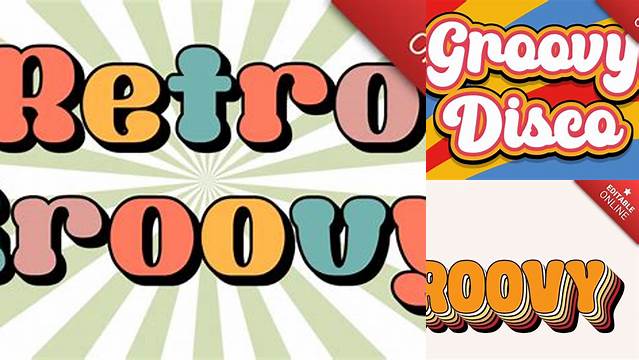
Free Retro Groovy Font Generator: 70s Style!
Hey groovy cats! Are you looking to add some serious retro vibes to your designs? Then you've come to the right place! In this article, we're diving deep into the world of retro groovy fonts and exploring how you can generate them for free. Get ready to boogie back in time and infuse your projects with that funky '70s flair.
What is a Retro Groovy Font?
So, what exactly is a retro groovy font? Think back to the days of bell-bottoms, disco balls, and lava lamps. The fonts of that era were bold, expressive, and full of personality. They often featured rounded shapes, psychedelic curves, and a generally playful aesthetic. These fonts were designed to grab attention and evoke a sense of fun and freedom. When we talk about retro groovy fonts, we're talking about fonts that capture that same spirit – fonts that instantly transport you back to the 1970s.
Retro groovy fonts are more than just a typeface; they are a statement. They embody the spirit of an era defined by bold expression and cultural revolution. Picture the opening credits of a classic 70s sitcom, the album art of a funk record, or the signage of a vintage boutique. These visuals are all tied together by the unique fonts of the time. Fonts such as the Cooper Black, with its rounded serifs and heavy weight, or the fluid, script-like forms of fonts similar to the Lobster, encapsulate the decade's playful and expressive nature. These fonts were not designed to be subtle; they were meant to stand out, to command attention, and to add a touch of whimsy to any design. Their curves and flourishes are reminiscent of the organic shapes and psychedelic art that were so popular, making them a perfect choice for projects aiming to evoke a sense of nostalgia or vintage cool. Whether you’re creating a poster, a logo, or a website, using a retro groovy font can instantly inject your work with the iconic style of the 70s, making it resonate with those who remember the decade and captivating those who are discovering its charm for the first time.
The versatility of retro groovy fonts also makes them incredibly appealing in contemporary design. While they may be rooted in the past, their unique character and eye-catching forms allow them to seamlessly integrate into modern projects. Imagine a music festival poster that uses a retro groovy font to announce the headlining acts, instantly conveying a sense of fun and nostalgia. Or consider a brand that wants to communicate a sense of playfulness and approachability; using a font with rounded edges and a vintage feel can help create that connection with the audience. The key is to use these fonts thoughtfully, balancing their bold nature with the overall design to achieve a cohesive and impactful result. For example, pairing a retro groovy font with a clean, minimalist layout can create a striking contrast that draws the eye and makes the font truly shine. In addition, modern designers often experiment with color palettes and visual elements that complement the font's vintage vibe, such as warm oranges, yellows, and browns, or geometric patterns and retro illustrations. By understanding the history and characteristics of these fonts, designers can leverage their power to create designs that are both timeless and on-trend.
From a technical standpoint, the creation of retro groovy fonts often involves meticulous attention to detail. Font designers must consider the spacing between letters, the weight and thickness of the strokes, and the overall rhythm and flow of the typeface. Many retro groovy fonts feature exaggerated curves and rounded terminals, which require careful craftsmanship to ensure that the font remains legible and visually appealing. The process of digitizing these fonts also presents unique challenges. While some fonts are direct adaptations of typefaces from the 70s, others are modern interpretations that capture the essence of the era while incorporating contemporary design principles. This often involves experimenting with different software and techniques to achieve the desired effect, such as using bezier curves to create smooth, flowing lines or adjusting the kerning and tracking to optimize readability. The end result is a typeface that not only looks great but also functions effectively in a variety of applications, from print to digital media. By investing the time and effort to create high-quality retro groovy fonts, designers can provide a valuable resource for creatives looking to add a touch of vintage flair to their projects.
Why Use a Retro Groovy Font?
- Nostalgia: They instantly evoke a sense of nostalgia and remind people of a simpler time.
- Uniqueness: In a world of generic fonts, retro groovy fonts stand out from the crowd.
- Personality: They add a ton of personality and character to your designs.
- Versatility: They can be used in a variety of projects, from posters and flyers to logos and websites.
- Fun: Let's face it, they're just plain fun!
Imagine you're designing a poster for a '70s-themed party. What better way to set the mood than with a retro groovy font? Or perhaps you're creating a logo for a vintage clothing store. A funky font can instantly communicate the store's aesthetic and attract the right customers. The possibilities are endless! The use of retro groovy fonts can also significantly enhance the emotional connection with the audience. These fonts have the power to evoke memories, create a sense of familiarity, and tap into the cultural zeitgeist of the 1970s. This can be particularly effective in branding and marketing, where creating an emotional connection with consumers is crucial. For example, a retro groovy font might be used in the packaging of a product that aims to evoke a sense of nostalgia or authenticity. Similarly, a website or social media campaign that uses these fonts can create a consistent visual identity that resonates with the target audience. The key is to understand the specific emotions and associations that retro groovy fonts evoke and to use them strategically to achieve the desired effect. By doing so, designers can leverage the power of these fonts to create designs that are not only visually appealing but also emotionally impactful.
Beyond their aesthetic appeal, retro groovy fonts also offer practical benefits in terms of readability and visual hierarchy. Many of these fonts are designed with bold, clear forms that make them highly legible, even at smaller sizes. This is particularly important in applications such as posters, flyers, and websites, where the text needs to be easily readable at a glance. The unique shapes and styles of retro groovy fonts can also be used to create a strong visual hierarchy within a design. For example, a headline set in a retro groovy font can immediately grab the viewer's attention, while body text set in a simpler font remains easy to read. This contrast can help guide the viewer's eye through the design and ensure that key information is communicated effectively. In addition, the distinctive character of retro groovy fonts can help to differentiate a design from the competition. In a world where many designs look and feel the same, using a unique and eye-catching font can help a project stand out and make a lasting impression. By carefully considering the practical aspects of typography, designers can harness the power of retro groovy fonts to create designs that are both beautiful and functional.
The resurgence of interest in retro groovy fonts also reflects a broader trend in design towards embracing vintage aesthetics and styles. In recent years, there has been a growing appreciation for the craftsmanship and artistry of past eras, and designers are increasingly looking to historical styles for inspiration. This trend is driven by a desire to create designs that feel authentic and timeless, and retro groovy fonts are a perfect way to achieve this. By using these fonts, designers can tap into the rich history of typography and create designs that resonate with audiences on a deeper level. This trend is also influenced by the cyclical nature of design trends, where styles from the past often come back into fashion. As new generations discover the charm and character of retro groovy fonts, they are finding new and innovative ways to incorporate them into their work. This ensures that these fonts remain relevant and continue to inspire designers for years to come. By staying attuned to these trends and understanding the cultural context behind them, designers can make informed choices about when and how to use retro groovy fonts effectively.
Free Retro Groovy Font Generators: Your Ticket to Funkytown
Okay, so you're convinced that retro groovy fonts are the way to go. But where do you find them? Lucky for you, there are plenty of free online font generators that can help you create that perfect '70s look. Let's explore some options:
- FontStruct: This is a fantastic tool for creating your own fonts from scratch. It's like playing with digital building blocks, allowing you to craft unique retro groovy fonts with ease. The interface is user-friendly, even if you're not a design pro. You can experiment with different shapes, curves, and weights to achieve the exact look you're after. Plus, FontStruct has a vibrant community of users, so you can get inspiration from others' creations and even collaborate on projects. When you're done, you can download your font and use it in your designs. The best part? It's all free!
Get Your Groove On!
So there you have it, folks! Everything you need to know about retro groovy fonts and how to generate them for free. Now it's time to put on some funky tunes, fire up your favorite font generator, and start creating some seriously groovy designs. Peace out!